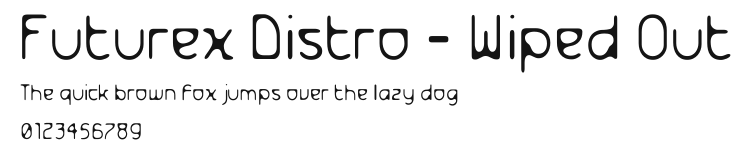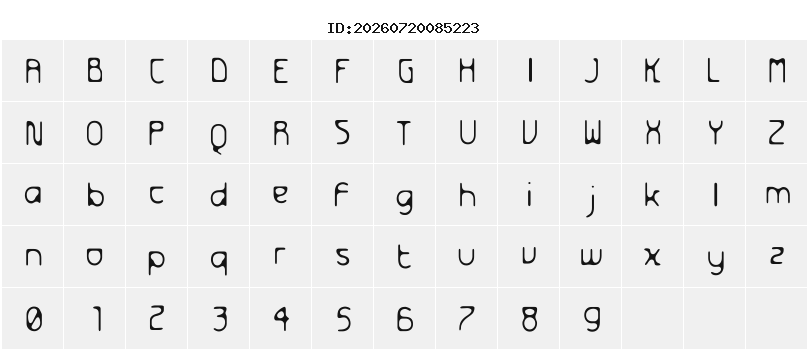
• Font Name: Futurex Distro - Wiped Out
• Designer: ;-Peter Ramsey
• Description: At the bottom of Pandora's box was Hope. :)
About Futurex Distro - Wiped Out.ttf
Futurex Distro - Wiped Out.ttf is a modern, elegant sans-serif font designed for ultimate readability and visual harmony. Perfect for branding, headlines, web design, and print materials.